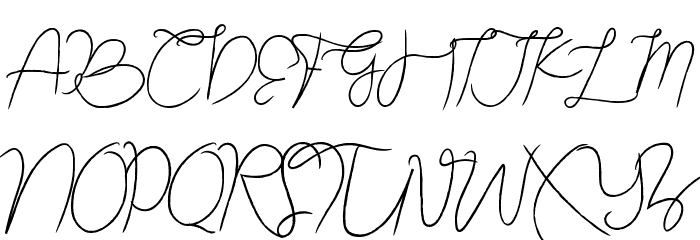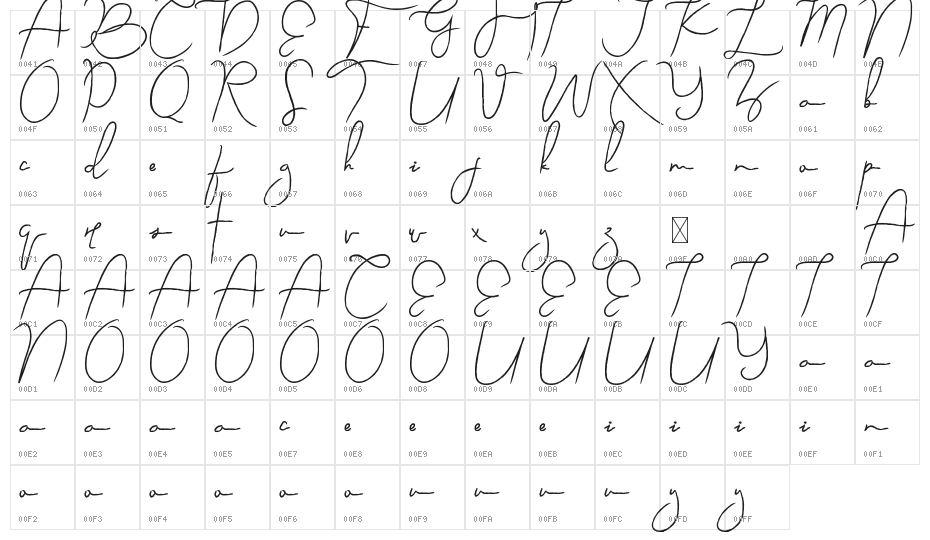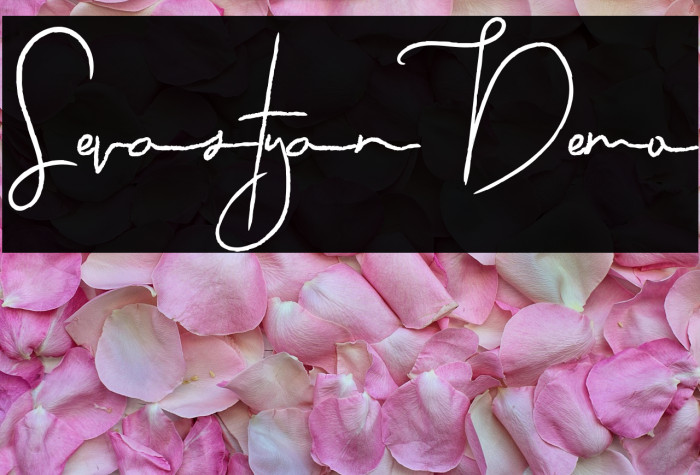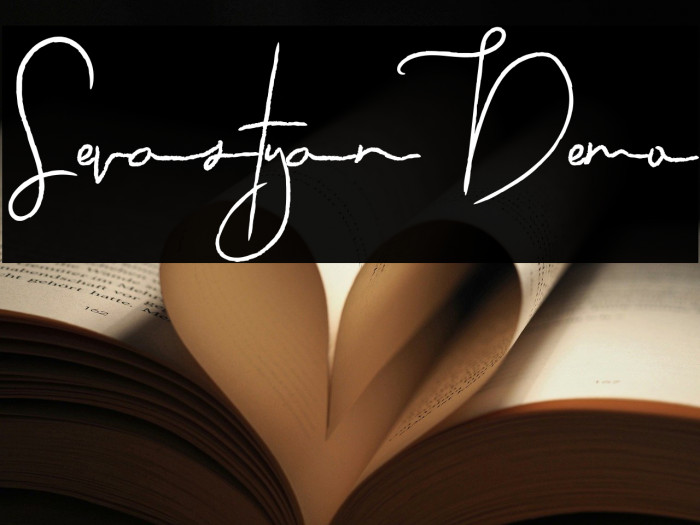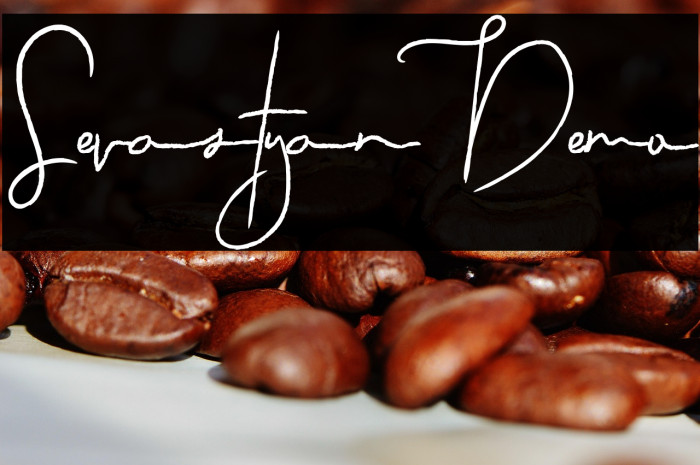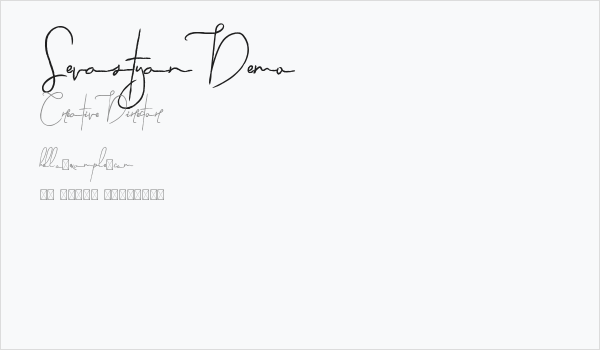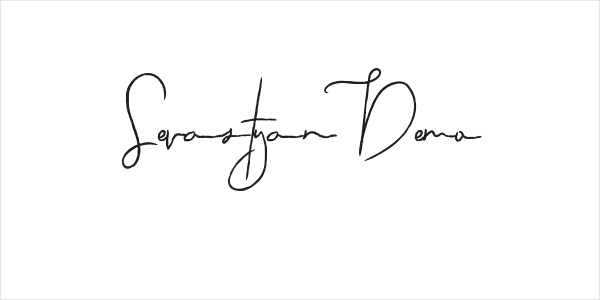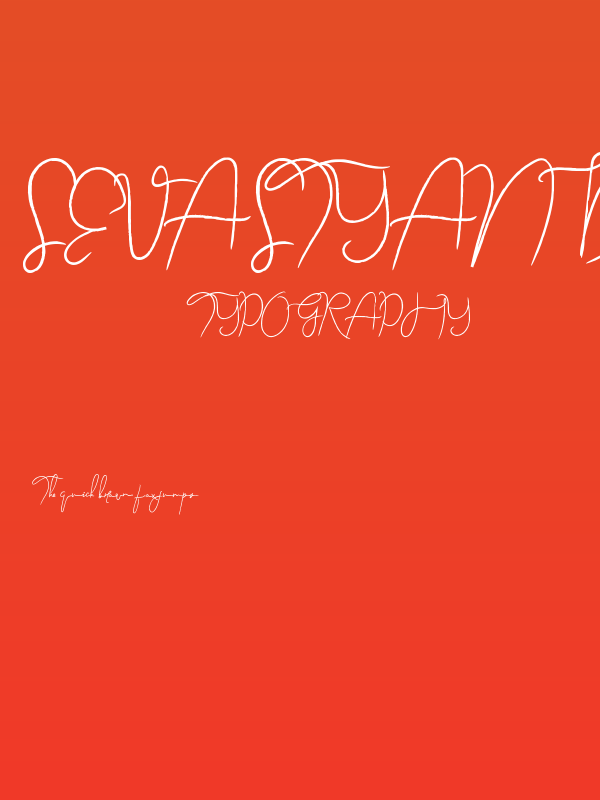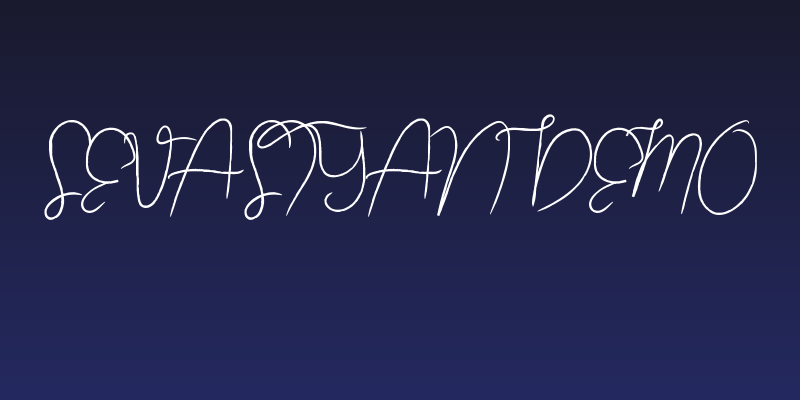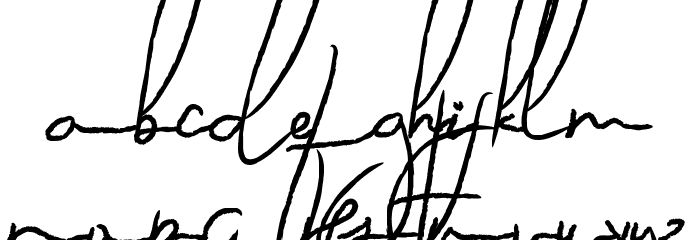
Sevastyan Demo Font
Sevastyan Demo Description
This font features an elegant and flowing script style, characterized by its intricate and continuous strokes that mimic the fluidity of handwriting. The uppercase letters are tall and slender, with graceful loops and curves that add a touch of sophistication. The lowercase letters maintain a consistent style, with some letters extending below the baseline, enhancing the cursive aesthetic. The numbers and special characters are designed to match the overall script style, ensuring a cohesive look across all characters. This font exudes a sense of elegance and refinement, making it suitable for projects that require a personal or artistic touch.
| Overall Style | Elegant, Artistic |